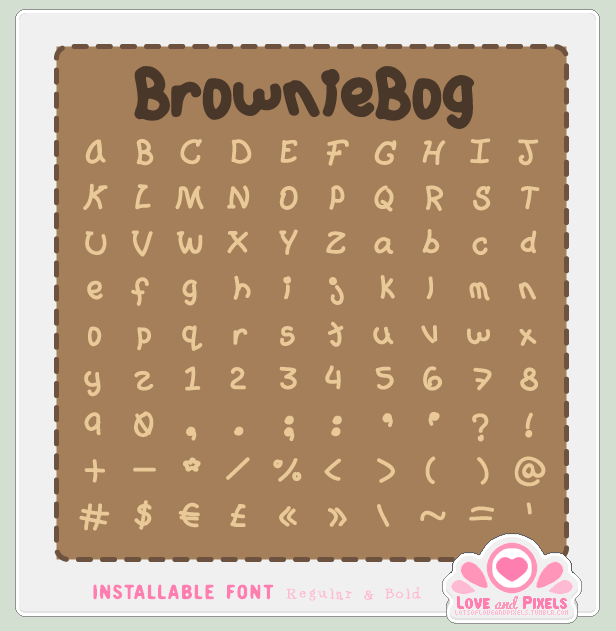
Such a cute font! I love it! Hope I can work something out for my blog banner If I use it, I'll show you
love this . im using it !!
how did you create?
thank you! ^^ I used a website that turns your handwriting in to a font
omg so cayuutee <3 ; u ;
ahh this is so cute โฅ~! ;v;
I love this font so much~~!! Definitely going to use it in the near future~~โฅโฅโฅ
You always make the most adorable things in the world I'd love to live in your brain. ;3;
Anyway, great stuff! Your stuff is so cute and cuddly omg. ใฝ(*โ ๏ฝ โ)๏พ๏พ.:๏ฝก+๏พ
aww, too bad there aren't any french characters like: ร , รข, รฉ, รจ, รซ, รฎ, รฏ. I use those a lot
If I fine the time I will try to update the font with these ^^ otherwise I will try to add them to my next one <3
I understand, it's really not everyone that uses those characters
LOVE this one too